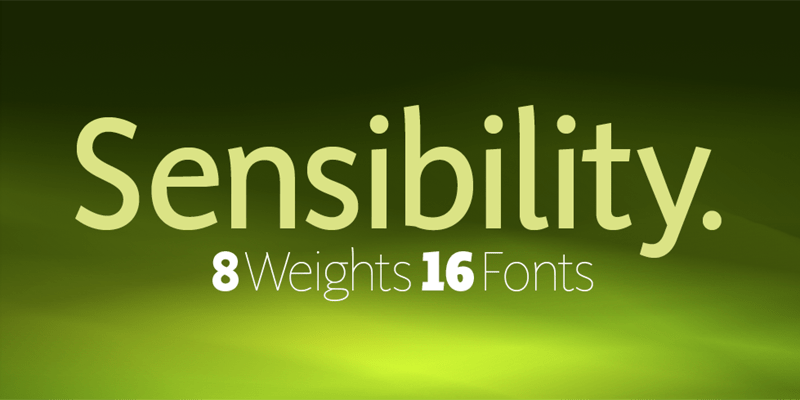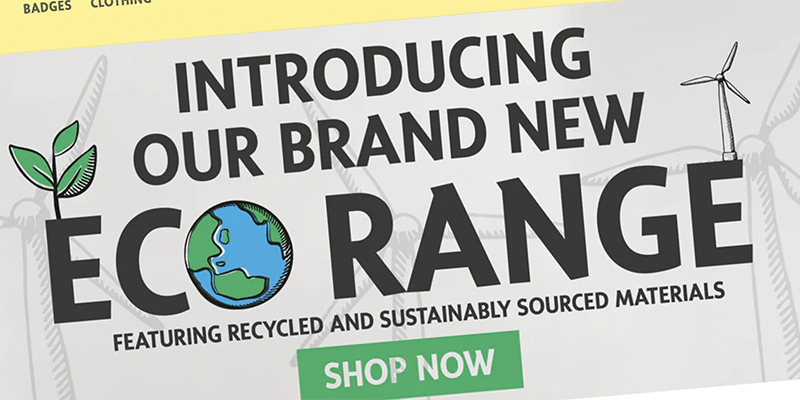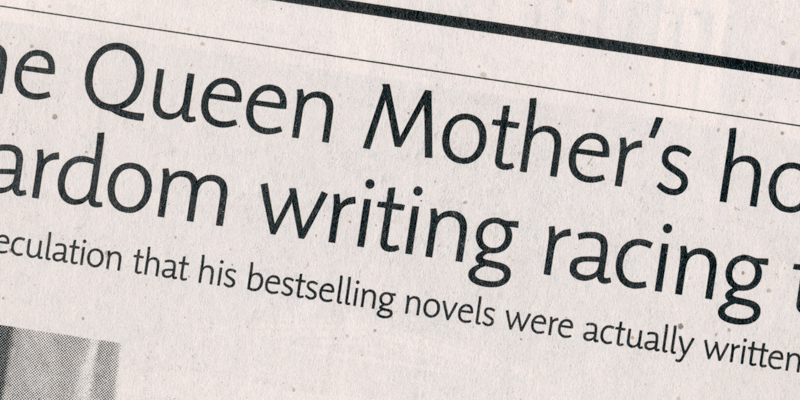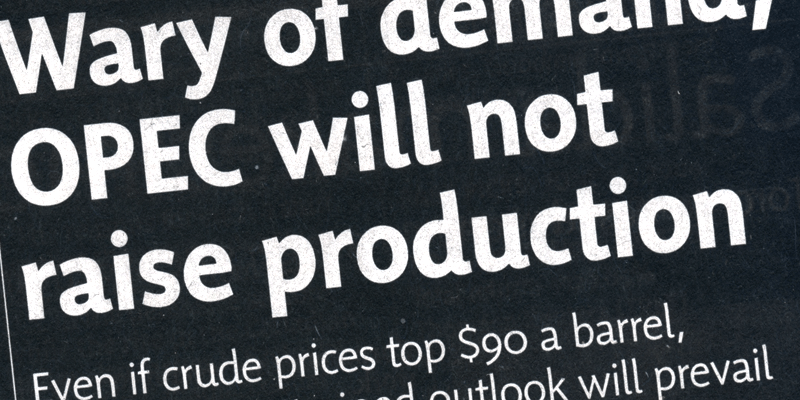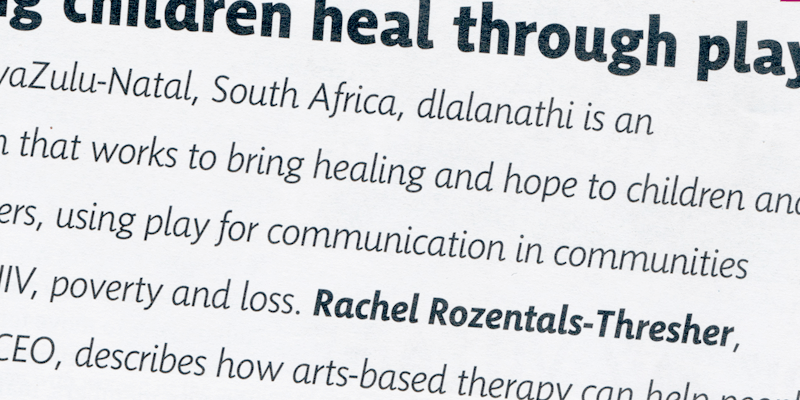
Sensibility
Font Family by Shinntype
Humanist sans serif with a "big" look and lots of weights. Compact, elegant and strong, Sensibility enlivens any kind of page -- from the largest headline to the smallest text.